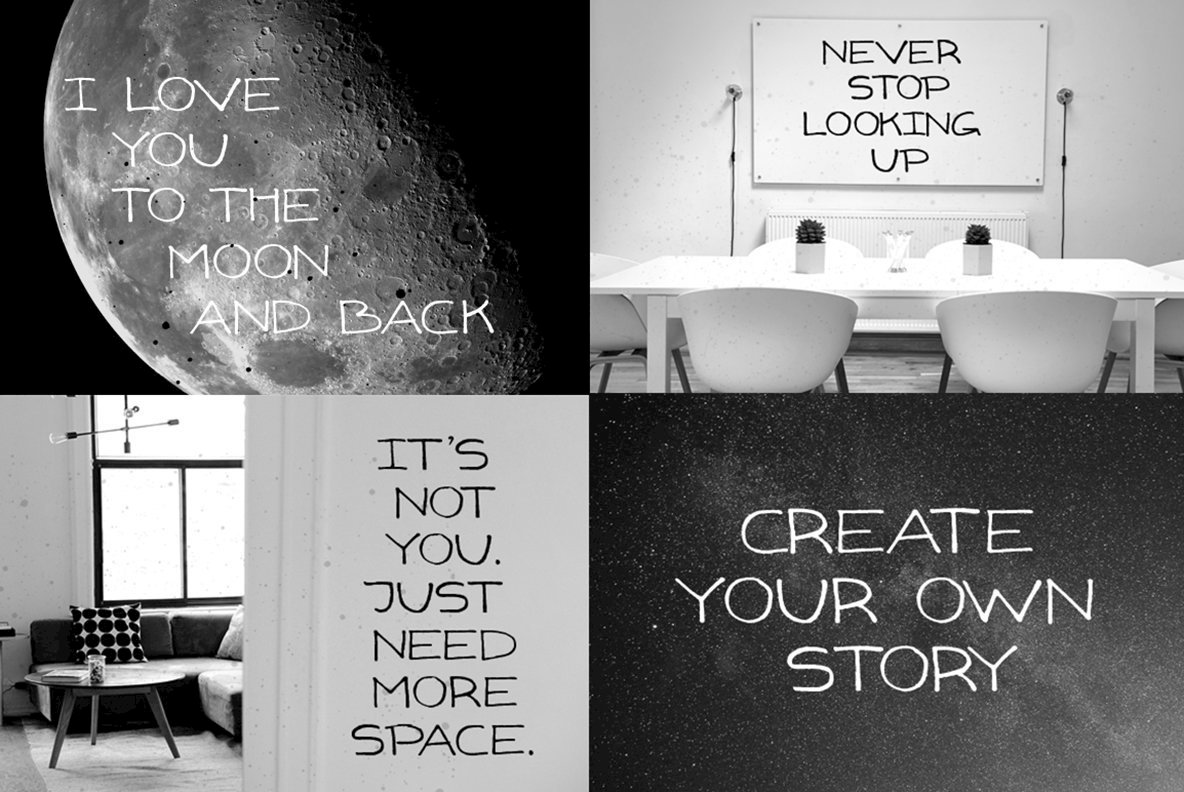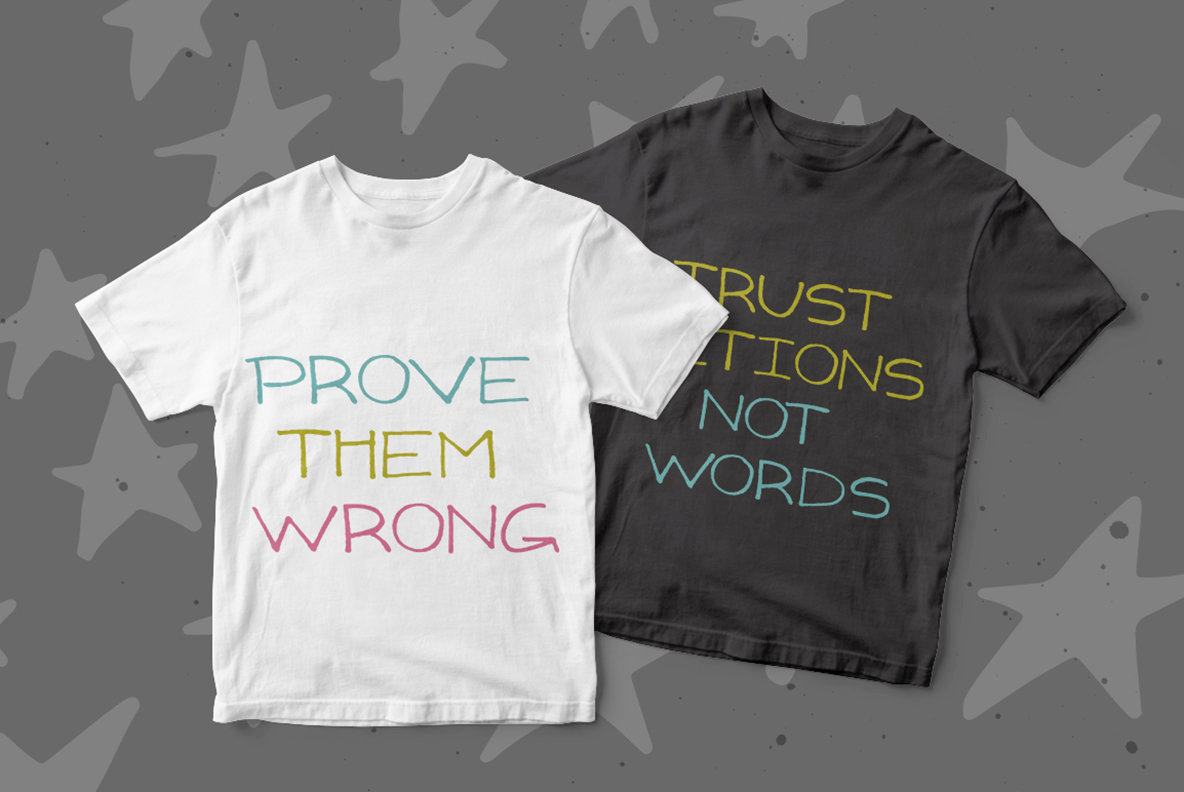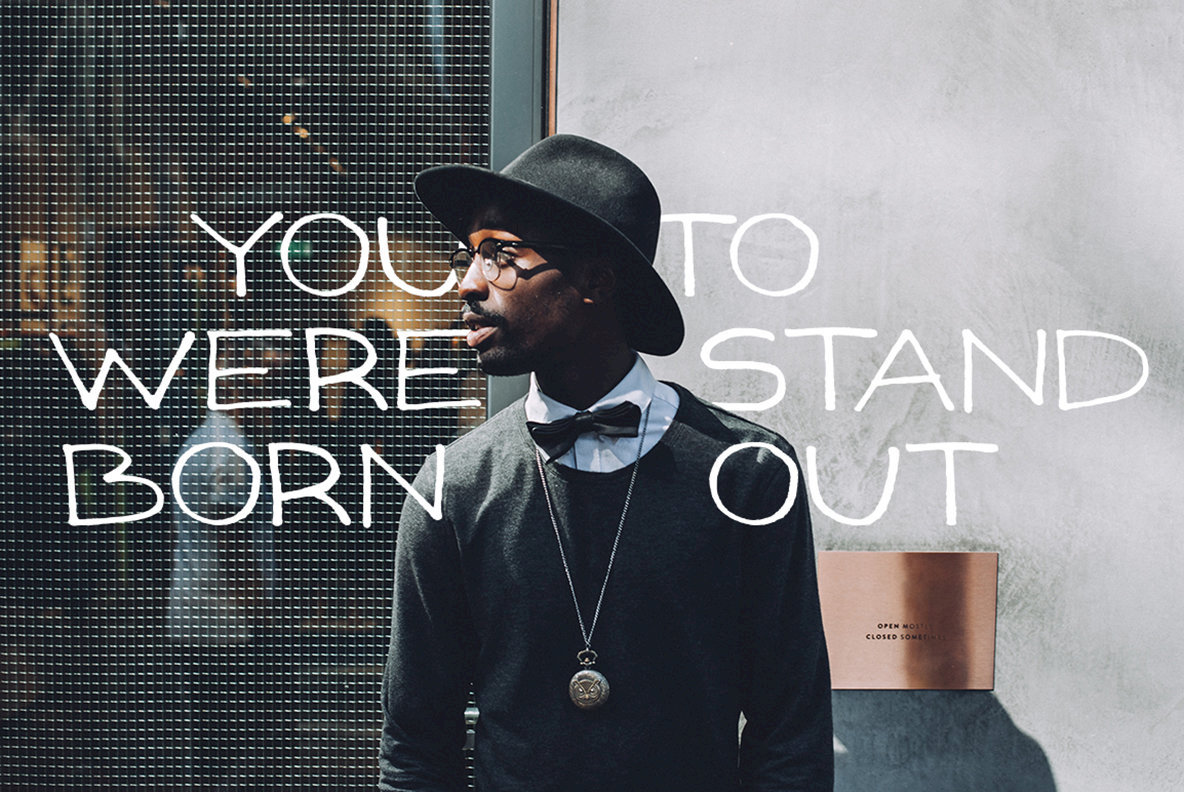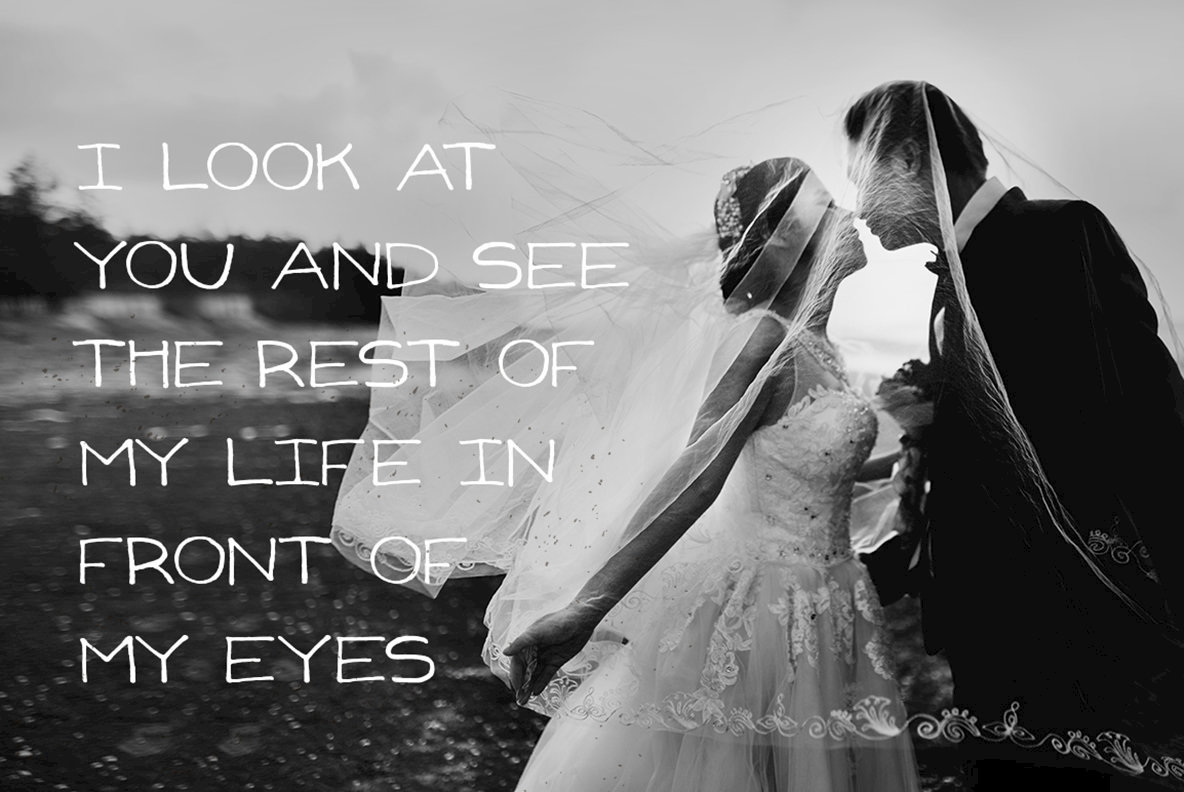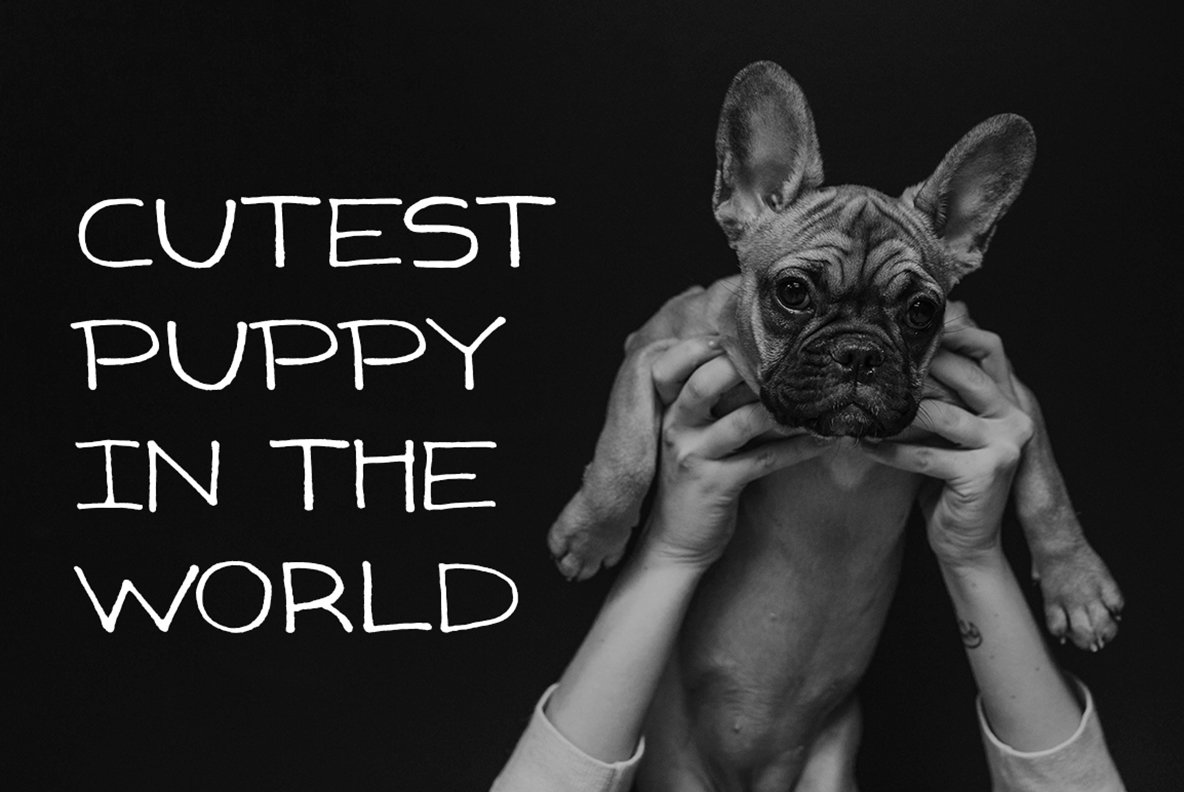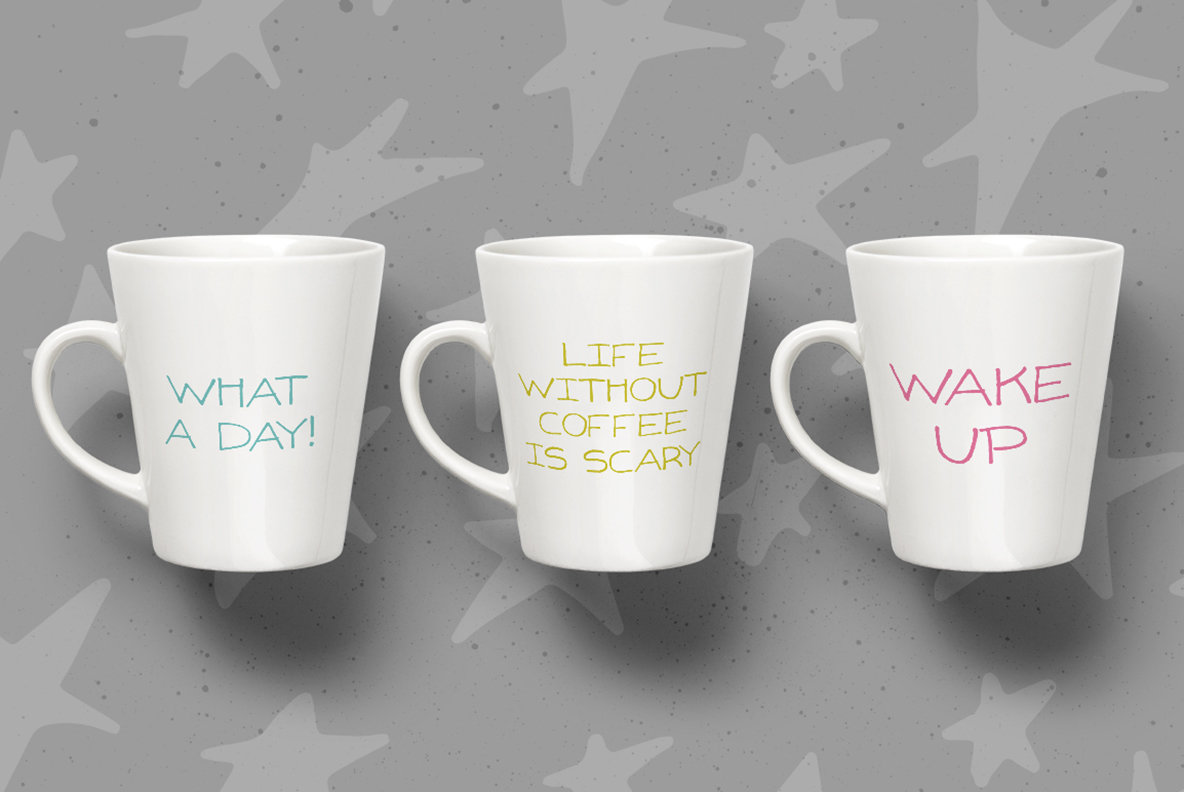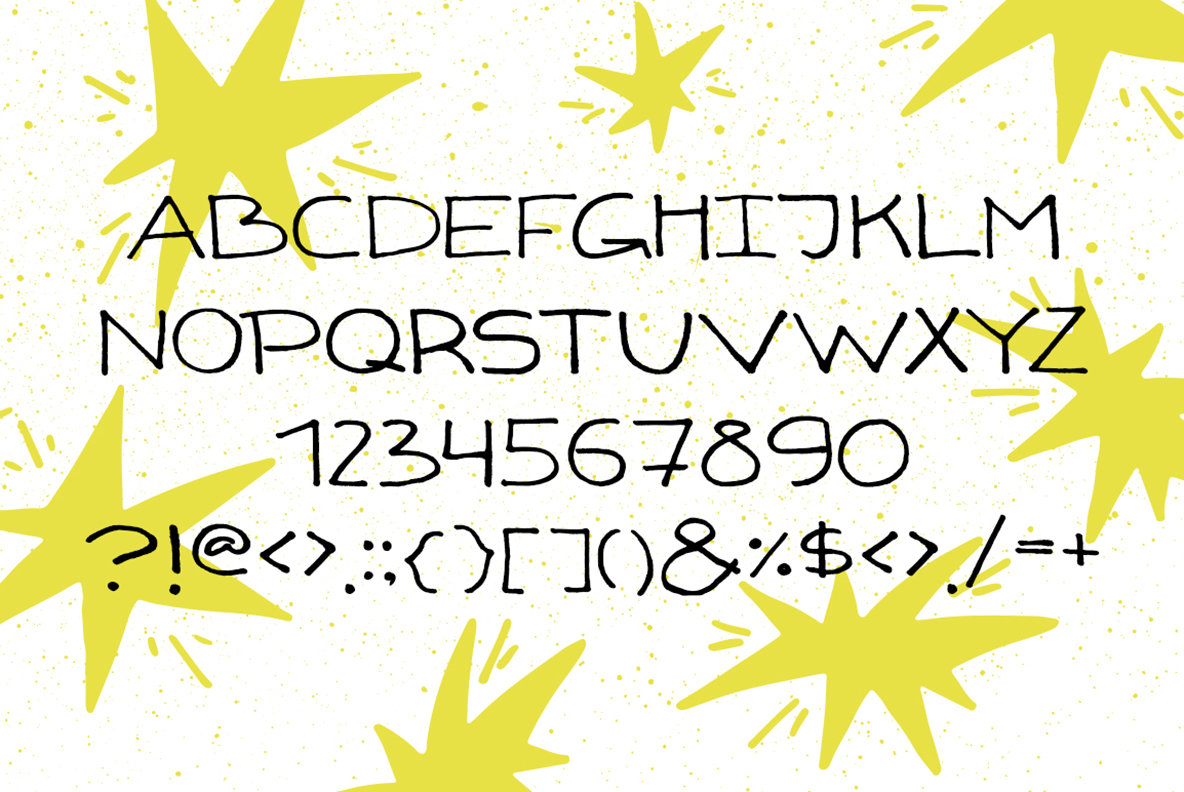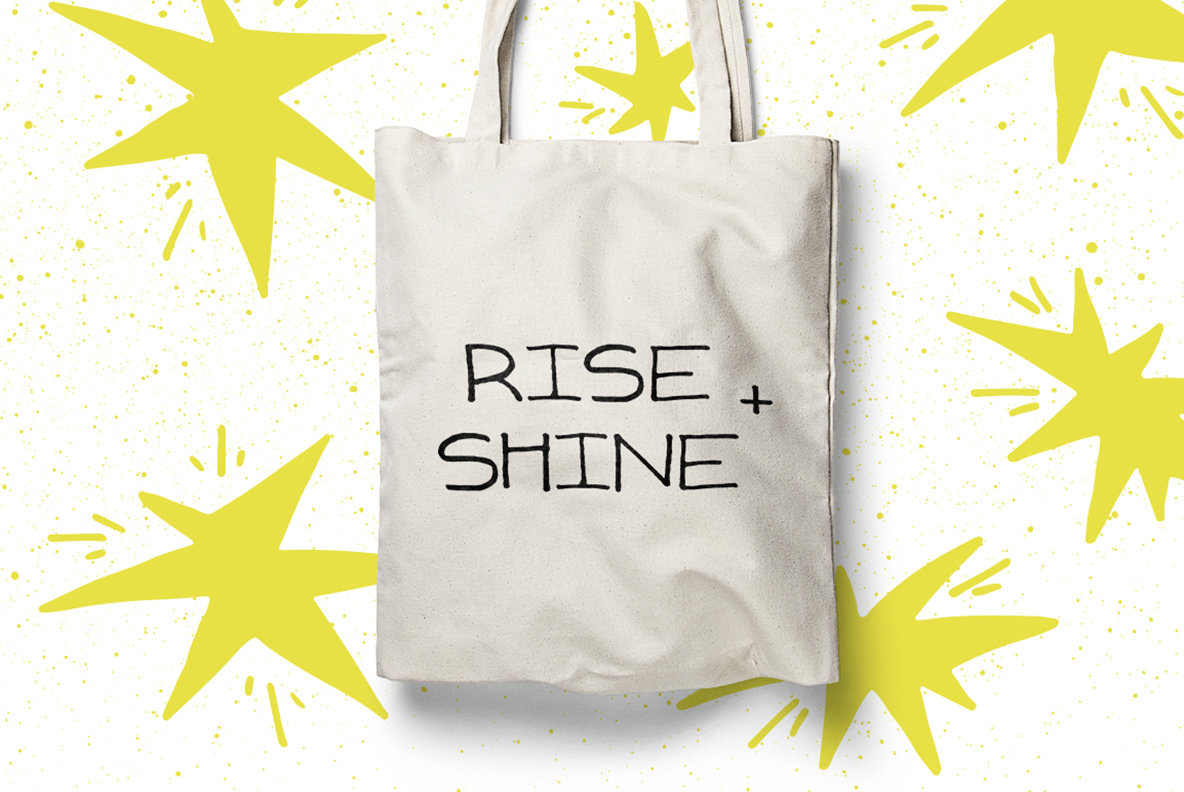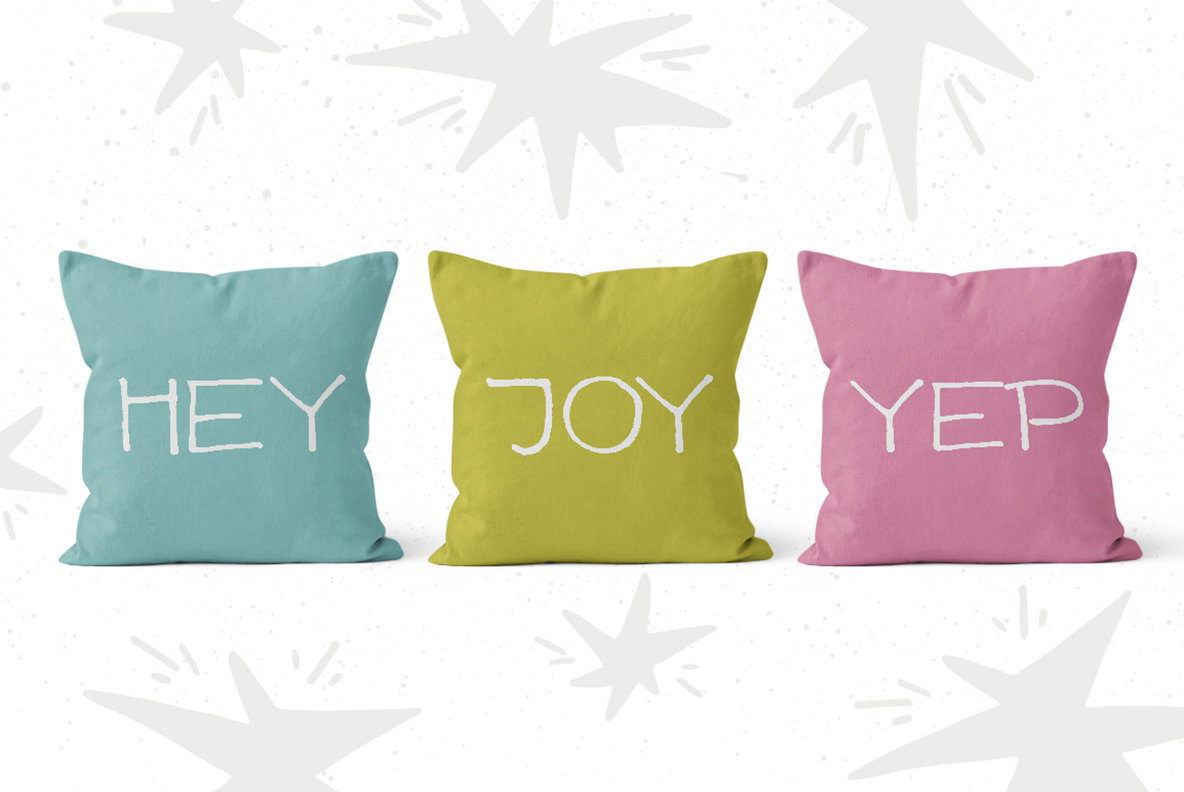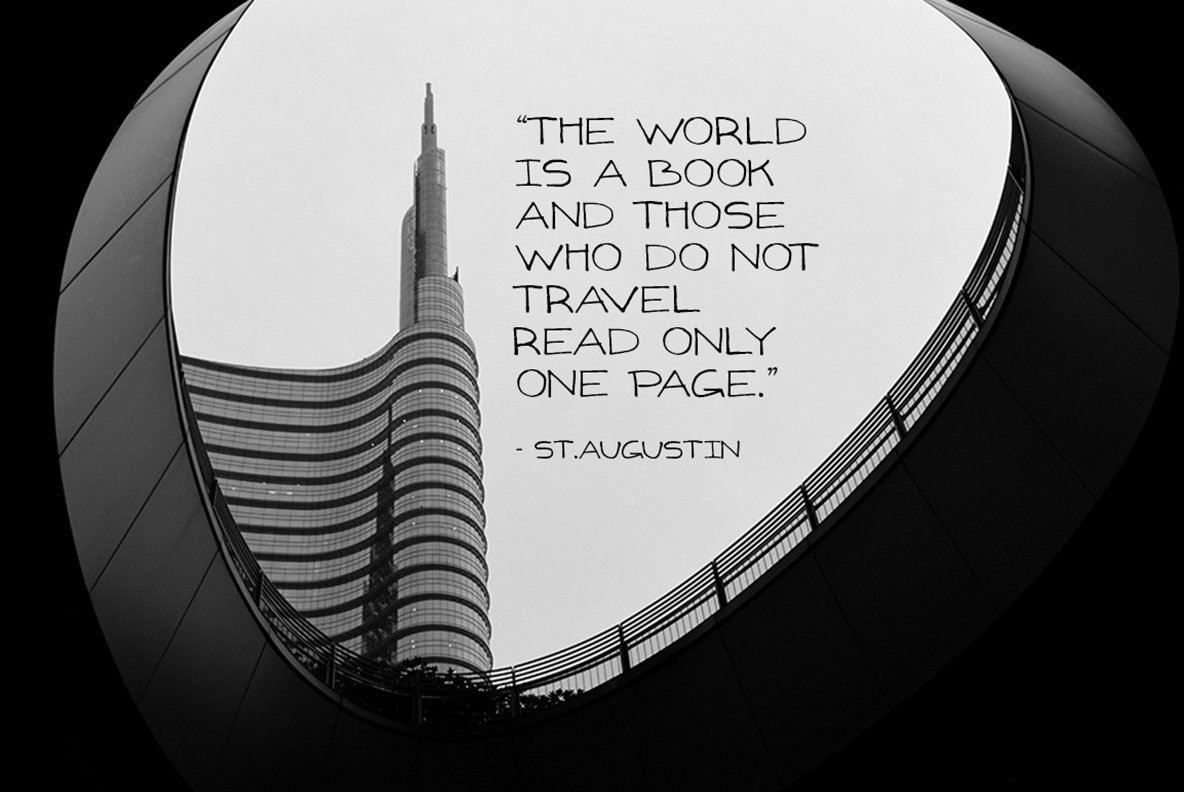
Gizmo Font
Gizmo
Gizmo by Favete Art offers a unique way to express creativity, balancing both fun and seriousness in its design. This uppercase hand-drawn marker font is perfect for various applications, including text headers, business cards, product packaging, and posters. It's designed to be legible while retaining a distinctive, organic touch. Ideal for collaborations, Gizmo shines when paired with script fonts, enhancing your design projects with complementary contrast. The clarity of Gizmo ensures that even large text portions remain readable and engaging.Gizmo: Dynamic Hand-Drawn Uppercase Font